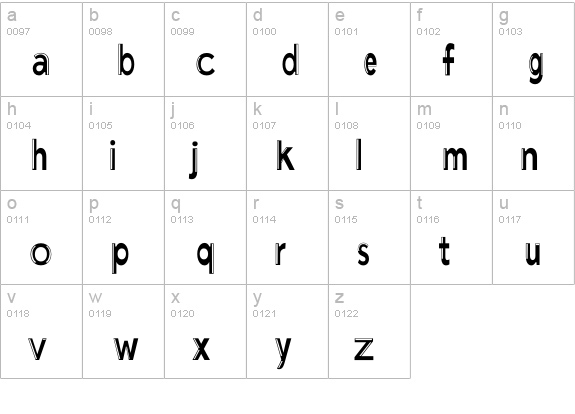
Introducing Pro Sans Serif font, the epitome of modern elegance and sophistication in typography. This versatile typeface boasts clean lines, sharp angles, and a sleek, minimalist design that exudes professionalism and style. Whether you're crafting a logo, designing a website, or creating print materials, Pro Sans Serif is the perfect choice to make your text pop and stand out.